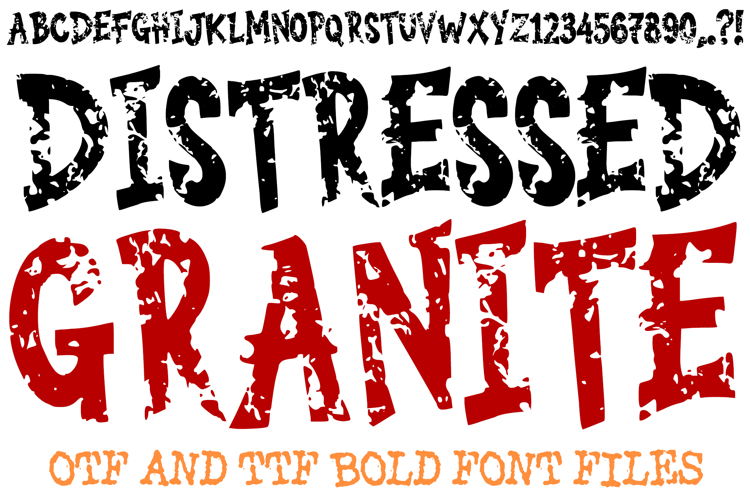
Distressed Granite Bold Font Letters Alphabet ABC Text Stone
Unleash a raw, elemental energy in your designs with the Distressed Granite Bold Font! This powerful display typeface features heavy, blocky characters infused with a complex, dark stone texture that mimics the natural fissures and mineral veins of ancient granite. With its sharp, jagged edges and weathered silhouette, it is the perfect choice for high-impact branding, heavy metal band posters, epic gaming interfaces, or urban street-style apparel.
Each letter is hand-drawn to capture a rugged, "carved from stone" aesthetic that balances ancient mystery with modern grit. Whether you are designing a book cover for a dark fantasy novel, creating edgy social media graphics, or building a brand identity for an industrial workshop, this font provides a solid, unshakeable foundation for your text.
Intricate Stone Texture: Every character is filled with a unique, high-contrast distressed pattern that resembles cracked obsidian or granite.
Aggressive Jagged Edges: The sharp, irregular outlines provide a weathered and "broken" look that adds instant character.
Bold & High Impact: The thick letterforms ensure your message remains legible even against complex backgrounds.
Versatile Aesthetic: Transitions perfectly between "ancient ruins" themes and "modern industrial" vibes.